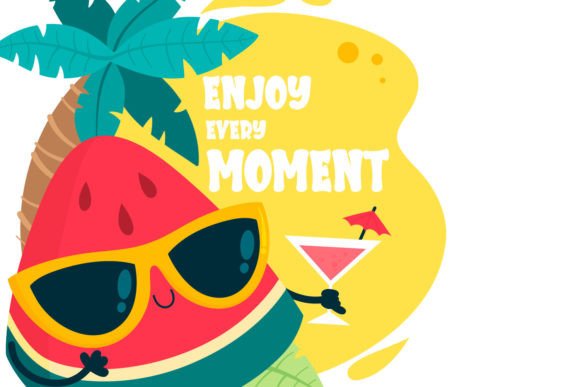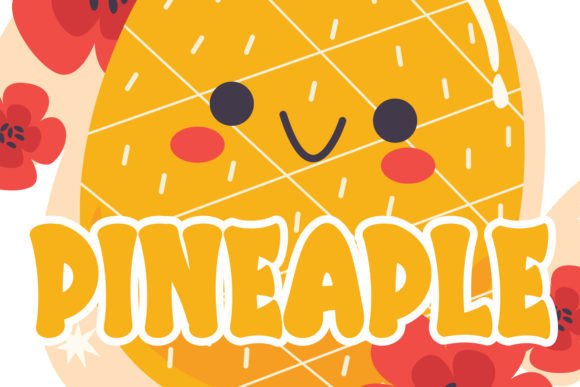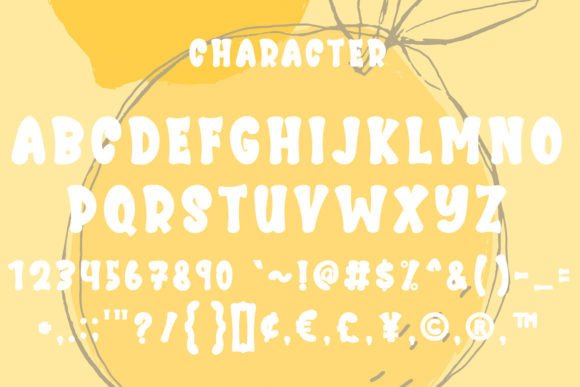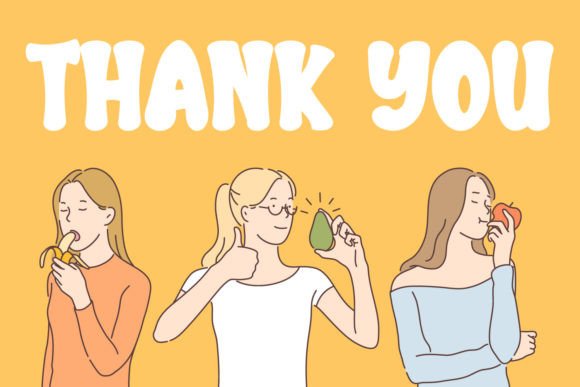
Fruits Groovy Font: Elevate Your Designs with a Chic Display Font
Are you tired of using the same old fonts in your designs? Do you want to add a touch of elegance and sophistication to your creations? Look no further than Fruits Groovy Font, a beautiful and chic display font that’s perfect for designers and crafters alike. In this article, we’ll take a closer look at Fruits Groovy Font, its features, and how it can elevate your designs to the next level.
What is Fruits Groovy Font?
Fruits Groovy Font is a stunning display font that’s designed to make a statement. With its unique and stylish lettering, this font is perfect for adding a touch of glamour to any design project. Whether you’re working on a logo, branding materials, or social media graphics, Fruits Groovy Font is sure to impress.
Key Features of Fruits Groovy Font
- Beautiful and Chic Design: Fruits Groovy Font features a beautiful and chic design that’s perfect for making a statement.
- High-Quality Letters: The font includes high-quality letters that are crisp and clear, making it perfect for use in a variety of design projects.
- Easy to Read: Despite its stylish design, Fruits Groovy Font is easy to read, making it perfect for use in body text as well as headlines.
- Versatile: Fruits Groovy Font can be used in a variety of design projects, from logos and branding materials to social media graphics and more.
Why Choose Fruits Groovy Font?
So why choose Fruits Groovy Font over other display fonts on the market? Here are just a few reasons why this font stands out:
- Unique Design: Fruits Groovy Font features a unique and stylish design that’s sure to make your designs stand out.
- Elegant and Sophisticated: This font adds a touch of elegance and sophistication to any design project, making it perfect for luxury brands and high-end designs.
How to Use Fruits Groovy Font
Using Fruits Groovy Font is easy. Here are just a few ways you can incorporate this font into your designs:
- Logos and Branding Materials: Use Fruits Groovy Font to create stunning logos and branding materials that will help your business stand out.
- Social Media Graphics: Add a touch of elegance and sophistication to your social media graphics with Fruits Groovy Font.
- Invitations and Stationery: Use Fruits Groovy Font to create beautiful invitations and stationery that will make a lasting impression.
- Packaging Design: Add a touch of glamour to your packaging design with Fruits Groovy Font.
Tips and Tricks for Getting the Most Out of Fruits Groovy Font
Here are just a few tips and tricks for getting the most out of Fruits Groovy Font:
- Experiment with Different Sizes and Colors: Don’t be afraid to experiment with different sizes and colors to find the perfect look for your design.
- Pair with Other Fonts: Fruits Groovy Font pairs well with other fonts, so don’t be afraid to get creative and try out different combinations.
- Use in Combination with Images: Use Fruits Groovy Font in combination with images to create stunning visual effects.